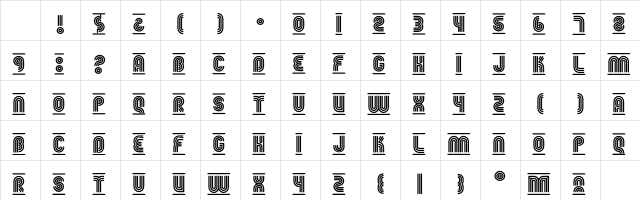
Fgroove SeventyEight Free Font
Fgroove SeventyEight
Style: SeventyEight
Design Context for Fgroove
Fgroove is a composed and adaptable typeface that performs quietly and consistently across a wide range of design contexts.